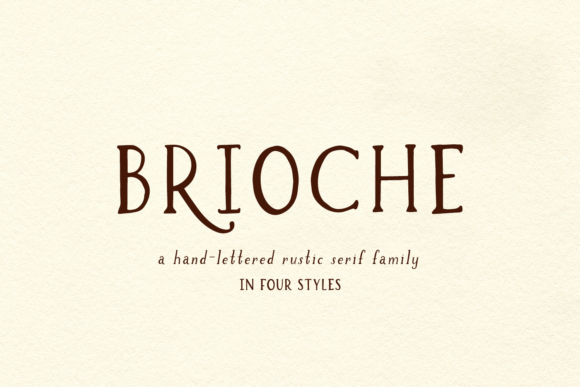
Brioche Font
Discover Brioche Font, a captivating serif masterpiece that effortlessly blends rustic charm with modern elegance. This meticulously crafted font, the brainchild of BeckMcCormick, is a testament to the beauty of simplicity.
Brioche's hand-lettered design exudes a down-to-earth allure, reminiscent of simpler times. Its organic strokes and subtle imperfections create a visual texture that adds depth and character to your designs.
Whether you're a seasoned designer or just starting, Brioche is a versatile font that will effortlessly elevate your work. Its understated beauty makes it perfect for a wide range of projects, from branding and logos to invitations and social media posts.
Brioche's serif details add a touch of sophistication without overwhelming the overall design. Its letterforms are carefully balanced, ensuring readability and visual appeal. This harmonious combination of classic and contemporary elements makes Brioche suitable for both traditional and modern aesthetics.
Unlock your creativity and embark on a journey of visual enchantment with Brioche Font. Let your words and designs come alive with its rustic charm and timeless elegance. Experience the magic of Brioche today and elevate your projects to new heights.